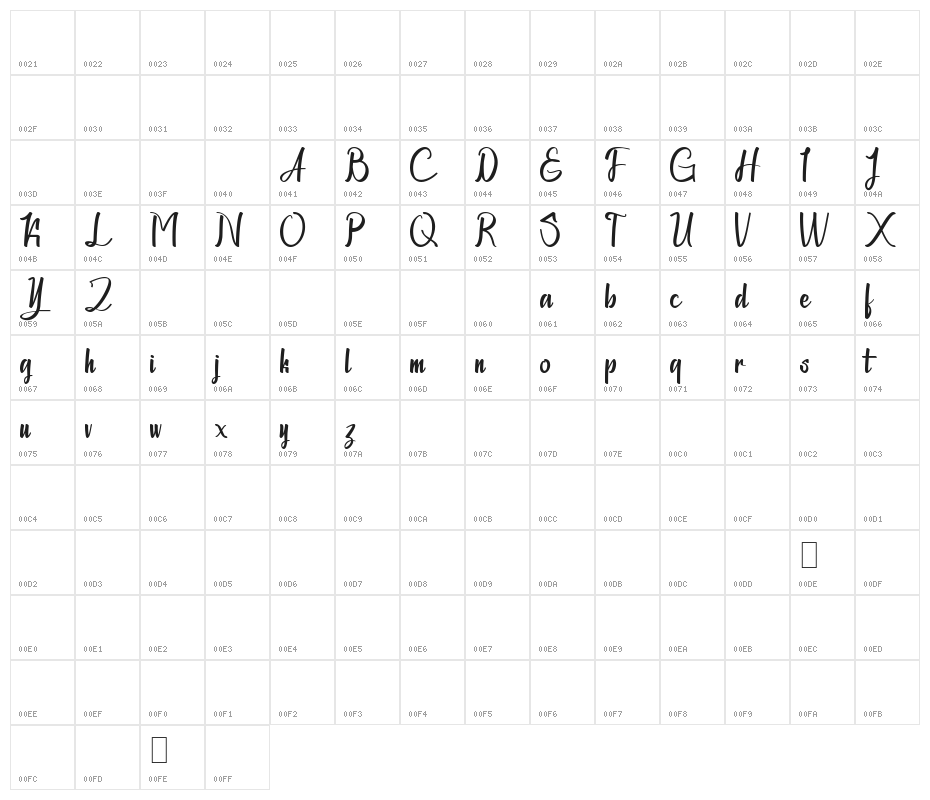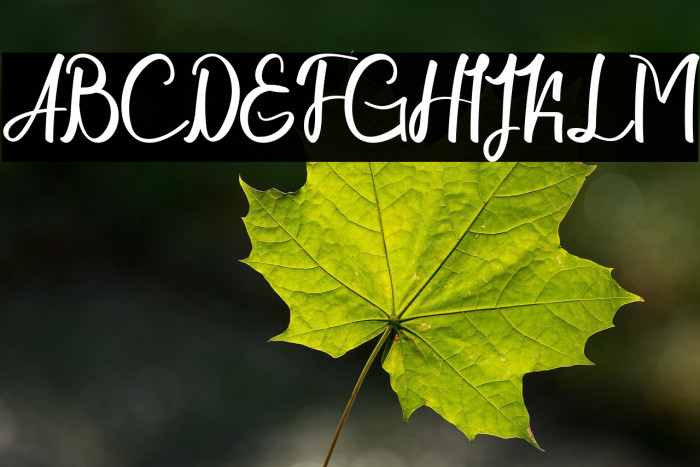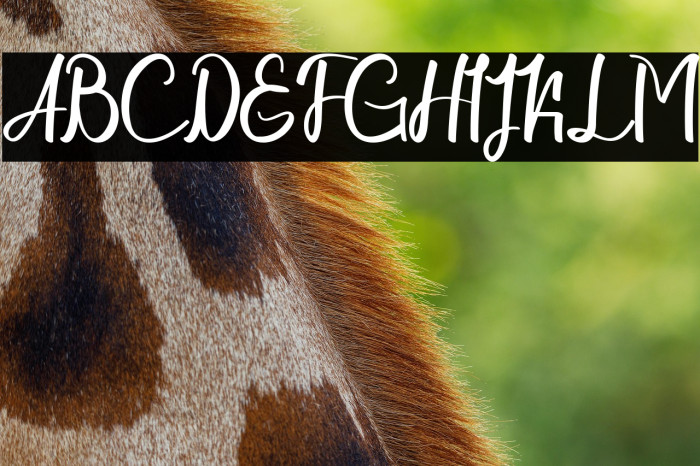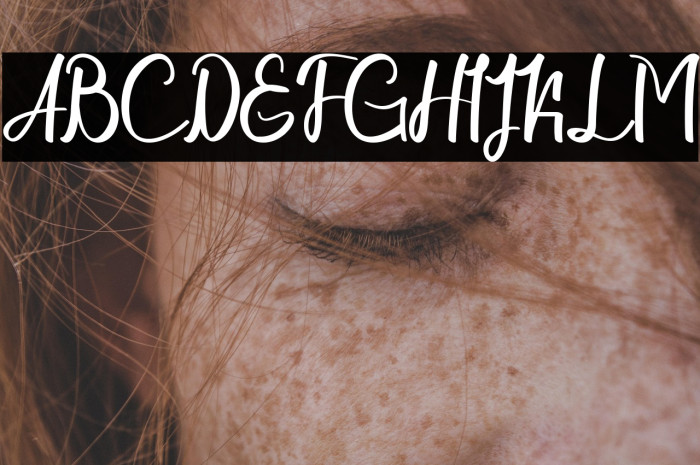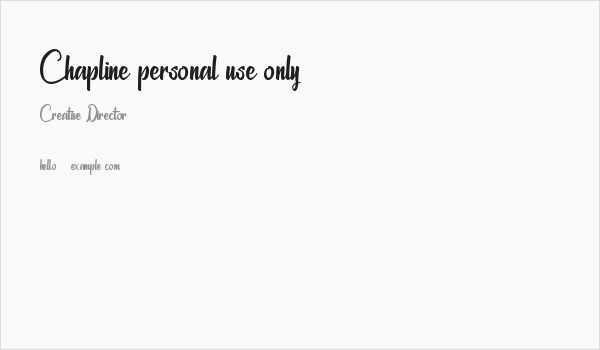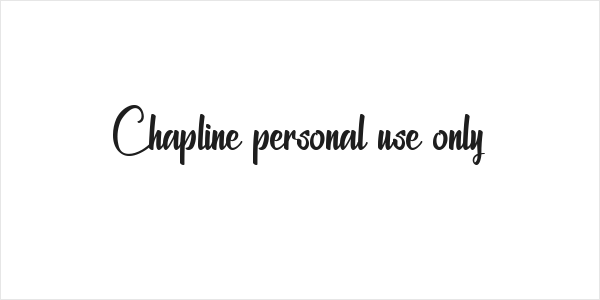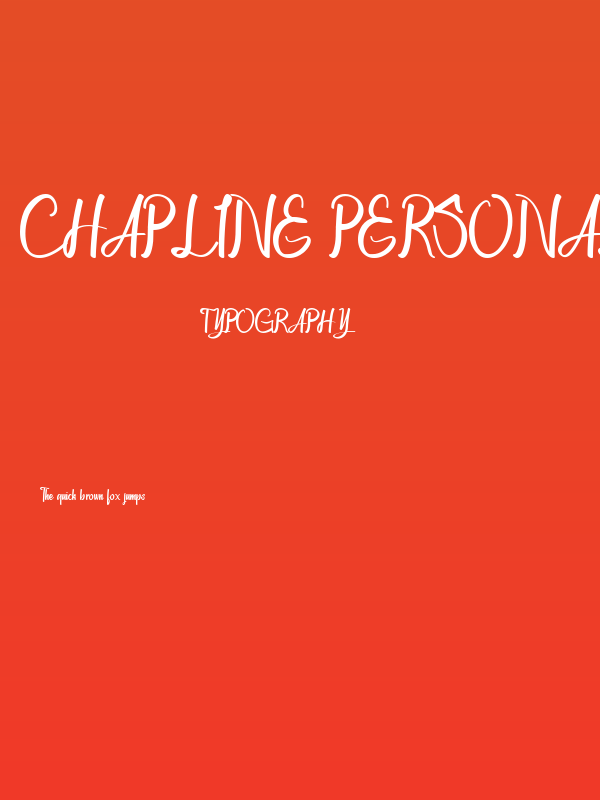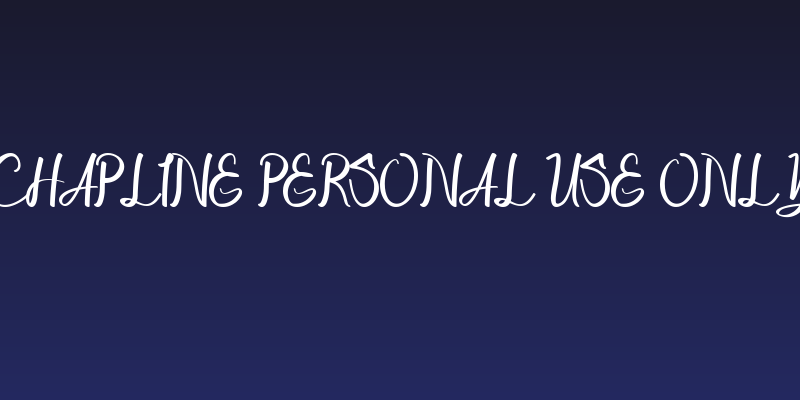
Chapline personal use only Font
Chapline personal use only Description
This font features a playful and artistic script style with a handwritten appearance. The uppercase letters are bold and dynamic, with sweeping curves and varying stroke widths that give a sense of movement and fluidity. The lowercase letters maintain a consistent style, with some characters featuring unique loops and flourishes that add to the font's charm. The numbers and special characters are designed to match the overall aesthetic, ensuring a cohesive look across all text. This font is perfect for projects that require a personal touch, such as invitations, greeting cards, or branding materials that aim to convey creativity and warmth.
| Proposed Projects | Ideal for invitations, greeting cards, branding materials, and creative projects. |